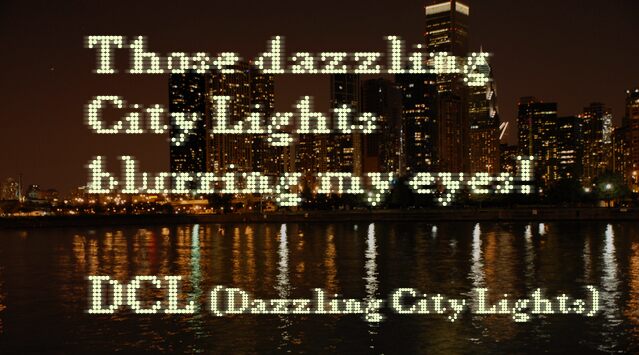
LLDCL
Captivating and digitally inspired, the LLDCL font by Markus Schröppel exudes a bold, eye-catching presence. The distinctive dot-matrix aesthetic creates a striking visual impact, evoking a retro-futuristic charm that commands attention. This display font's sharp, geometric forms and minimalist simplicity lend it a modern, technological flair, making it a versatile choice for a wide range of design projects.
The LLDCL font's unique character shines through in its precise, pixelated composition, seamlessly blending the digital and the analog. Its clean, sleek appearance and strong typographic presence make it an ideal selection for attention-grabbing headlines, impactful branding, and dynamic user interfaces. Whether you're crafting a cutting-edge web design, designing a captivating poster, or seeking to inject a touch of futuristic flair into your next project, the LLDCL font by Markus Schröppel offers a visually striking and infinitely adaptable solution.